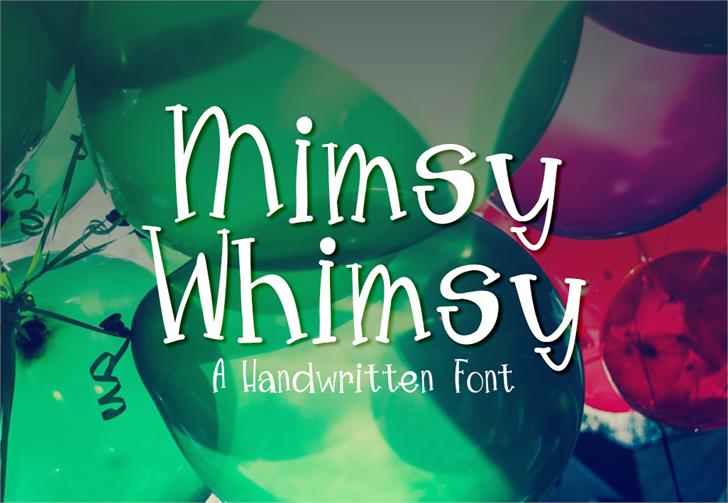
Free MimsyWhimsy Font
Take a look at this adorable free mimsywhimsy font. This free typeface file was found from the amazing source called Font Space. This is absolutely fancy font so you can easily make world-class designs.